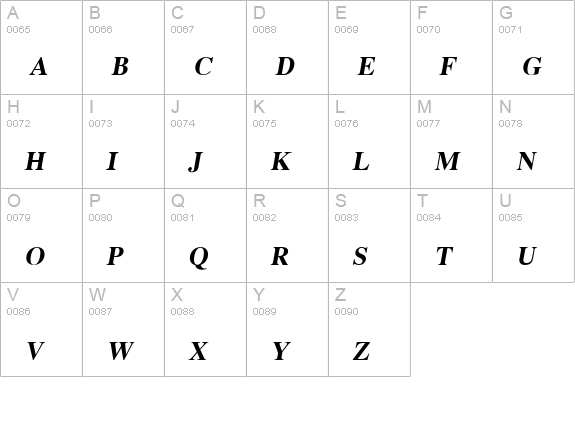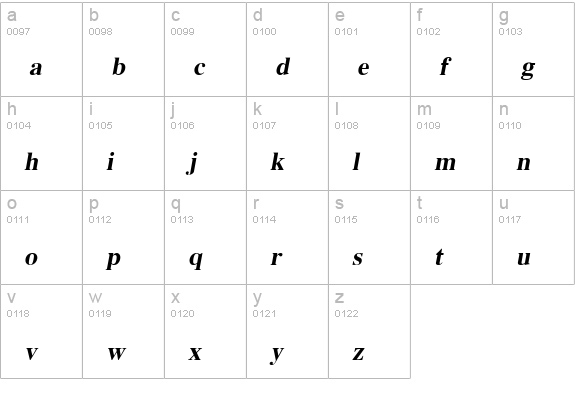
EucrosiaUPC Bold Italic Font Details
EucrosiaUPC Bold Italic is a strong, high-contrast, italic variant in the EucrosiaUPC typeface family \xE2\x80\x94 well suited to headlines, attention-grabbing titles, and strong calls-to-action.
EucrosiaUPC Bold Italic font is a stunning and versatile typeface that exudes elegance and sophistication. Its bold and italic design commands attention and adds a touch of modern flair to any project. The sleek curves and distinctive letterforms make this font perfect for a wide range of design applications, from branding to editorial design. What's even better is that EucrosiaUPC Bold Italic font is available for free download at FontsMarket.com. This means you can easily access this premium font without any cost, making it a valuable addition to your font collection. Whether you're working on a print project, digital design, or web content, EucrosiaUPC Bold Italic font will elevate your work and leave a lasting impression. Download it today and take your designs to the next level.